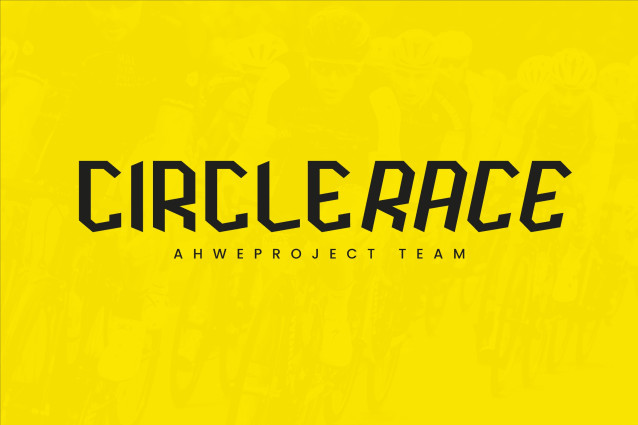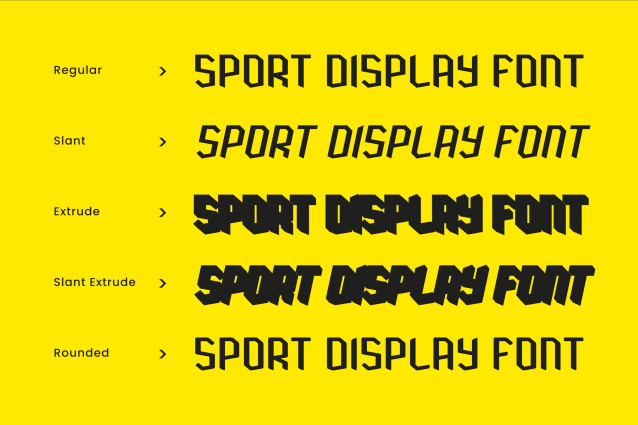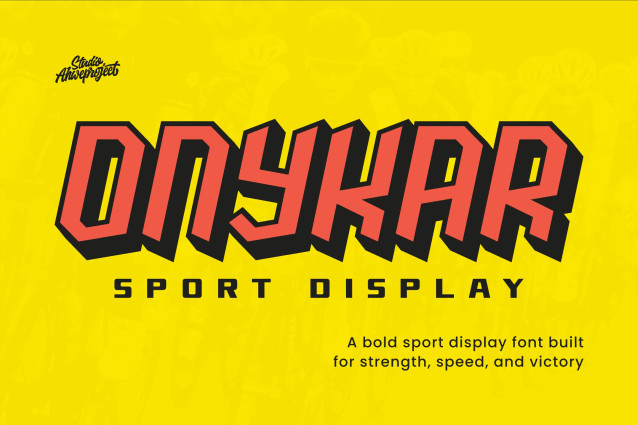
Onykar Display Font
Onykar Display Font is a bold sport display font engineered for strength, speed, and victory. Its sharp, angular forms and forward-leaning energy make every word feel like it’s in motion—perfect for teams, tournaments, and high-impact branding that needs to win attention fast.
Designed for instant readability at large sizes, Onykar delivers decisive headlines, powerful logos, and adrenaline-charged posters. Use it for esports and racing graphics, jersey names and numbers, gym branding, YouTube thumbnails, event tickets, stickers, and more—anywhere you want confident, competitive vibes.